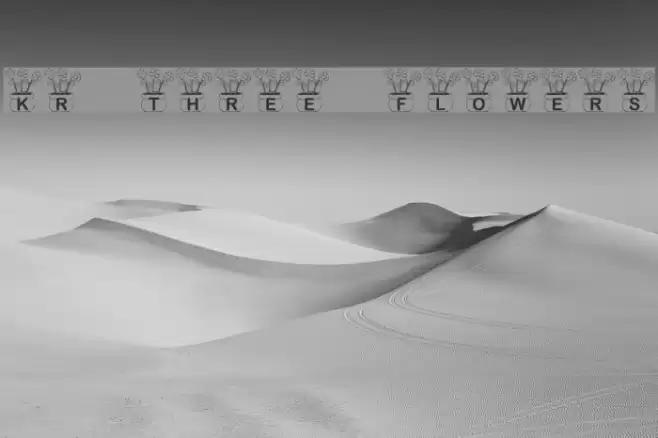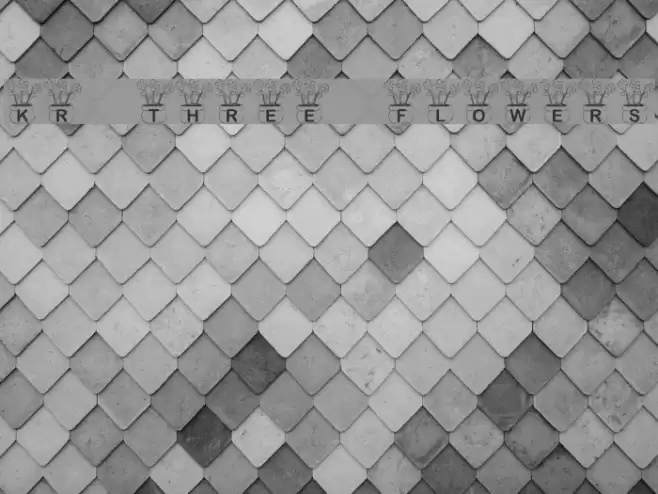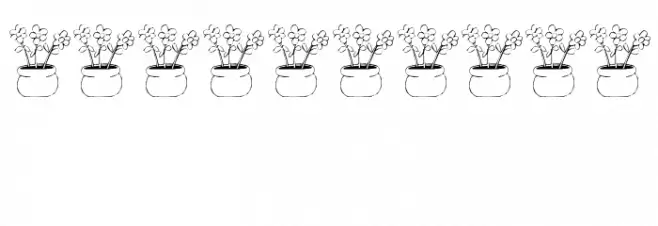
KR Three Flowers Font
KR Three Flowers Description
This decorative font features uppercase letters enclosed within a whimsical flower pot design. Each character is centered within a pot, with three stylized flowers sprouting above, adding a playful and artistic touch. The letters are bold and clear, ensuring readability despite the intricate floral embellishments. This unique design combines elements of nature with typography, creating a visually appealing and thematic presentation that stands out.
A decorative font with letters in flower pots, topped with three flowers from Uncategorized fonts.